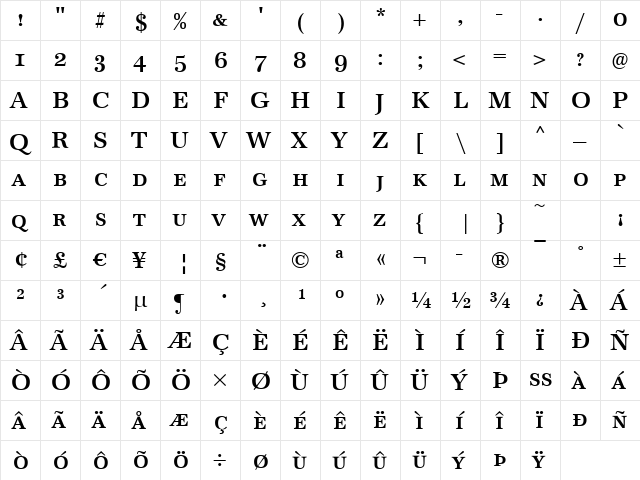
Antiqua-Caps Bold
Design Context for Antiqua-Caps Typeface
Antiqua-Caps offers clean, dependable letterforms without strong stylistic allegiance, making it a practical choice for designers who need flexibility. The heavy weight commands attention and anchors typographic hierarchies.